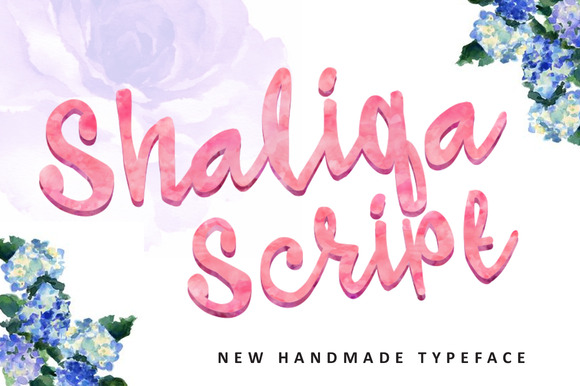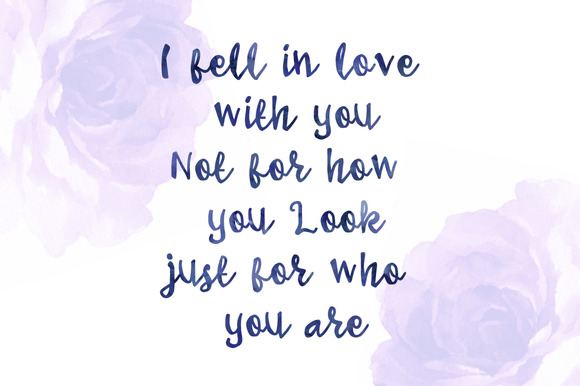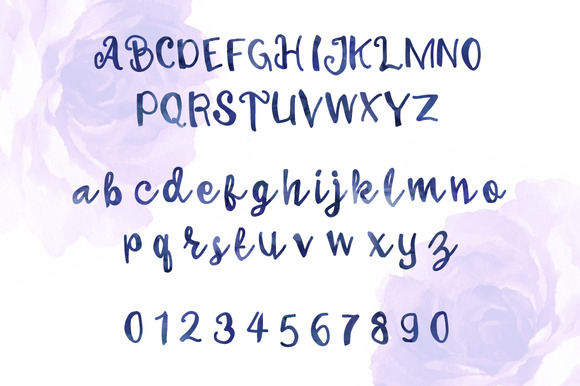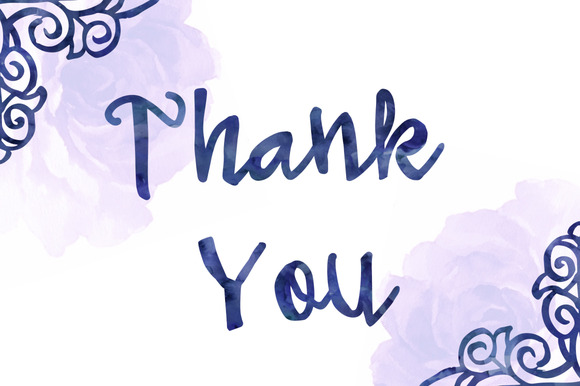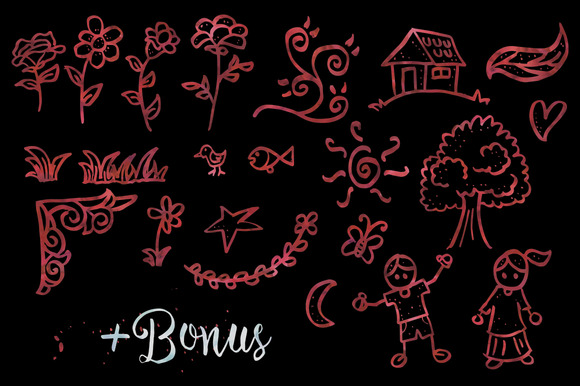
HomeScript FontsShaliqa Script Font Script Fonts Shaliqa Script Font FacebookXPinterestWhatsApp Shaliqa Script Font Poster 2 Shaliqa Script Font Poster 3 Shaliqa Script Font Poster 4 Shaliqa Script Font Poster 5 About Shaliqa Script Font Shaliqa Script is a beautiful handmade brush script with a natural look. DOWNLOAD ON CREATIVE FABRICAThis font is sold and delivered by Creative Fabrica. Font Canyon may earn a commission if you buy through this link. People also explored Thaitea Font Mousse Font Bullgine Font Farmhouse Font Vintage Monograms H Font Rendangan Font Deotone Font Lemonade & Toon Font Almond Butter Font 266 0 TagsShaliqa Script Font Previous articleSprightful FontNext articleScriptease Font LEAVE A REPLY Cancel reply Comment: Please enter your comment! Name:* Please enter your name here Email:* You have entered an incorrect email address! Please enter your email address here Website: Save my name, email, and website in this browser for the next time I comment. Personal Use Free Critical Personal Use Free Read more about this font Beautiful Personal Use Free Read more about this font Wadjet Personal Use Free Read more about this font Santhony Personal Use Free Read more about this font BLOG Using Fonts in Digital Marketing: Tips to Strengthen Your Brand Identity In the realm of digital marketing, every visual element plays a crucial role in shaping a brand's identity, and fonts are no exception. The... Free Fonts Risk: Why Free Fonts Can Be Dangerous for Designers Modern Sans-Serif Fonts That Brands Love in 2025 Top 10 Handwritten Fonts That Elevate Your Designs